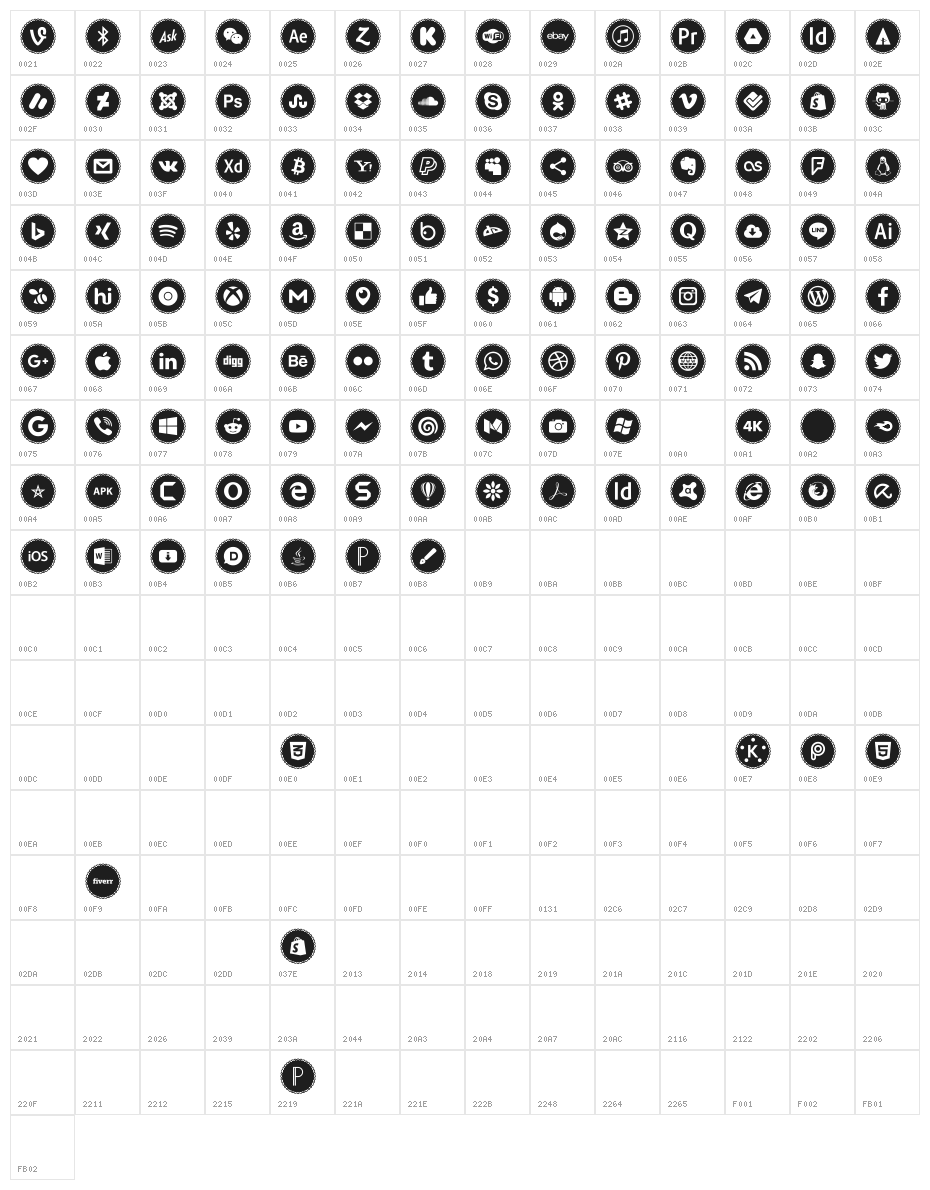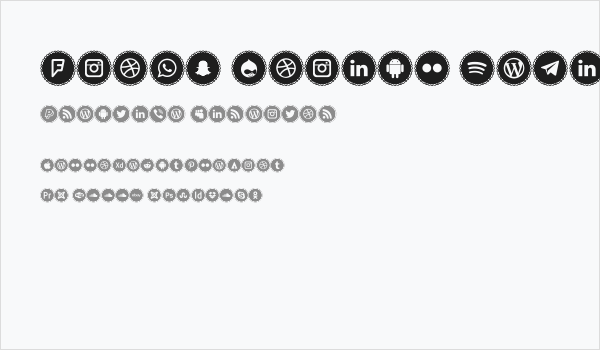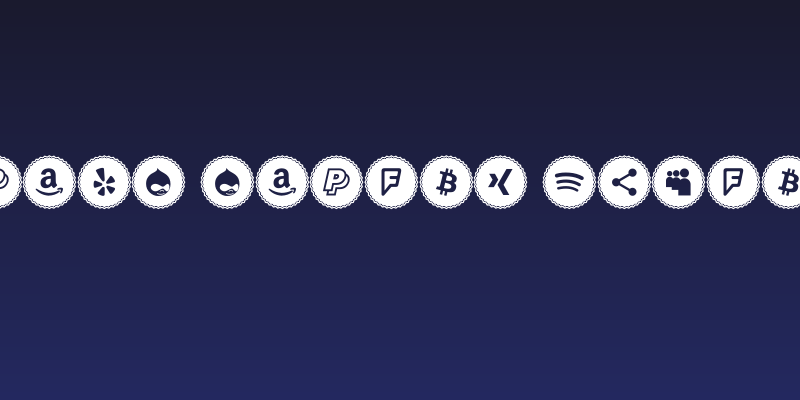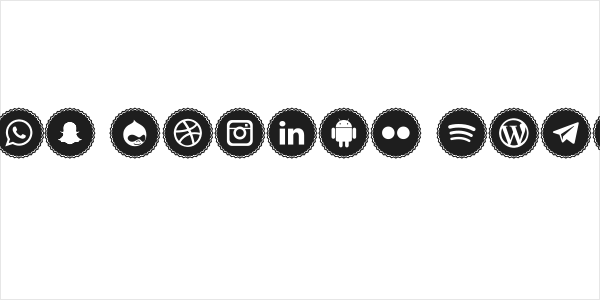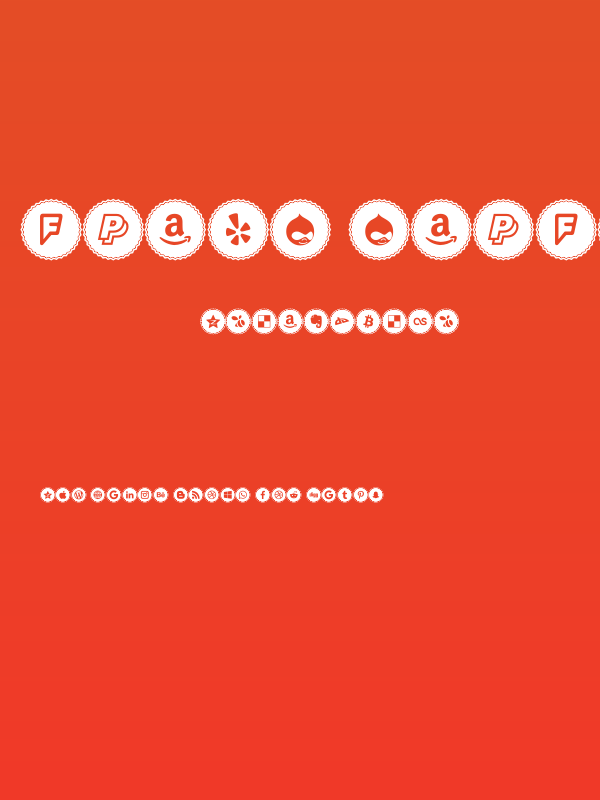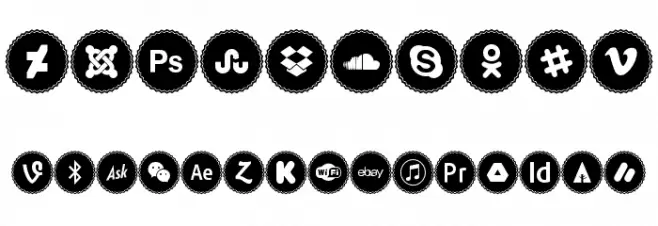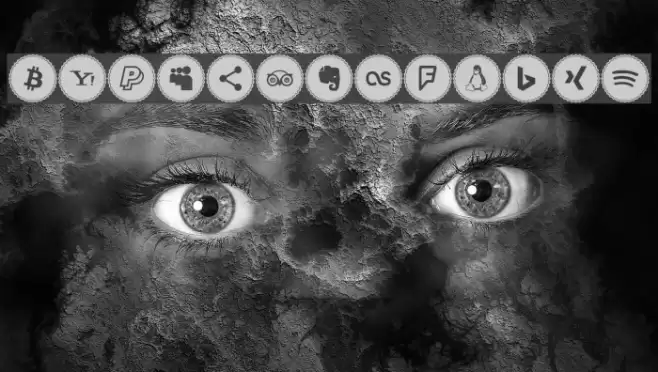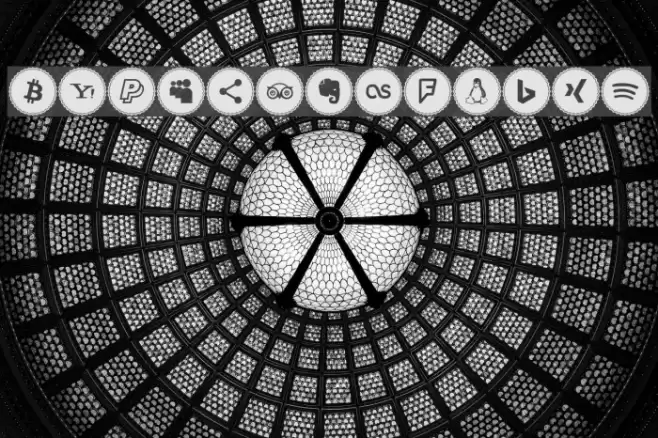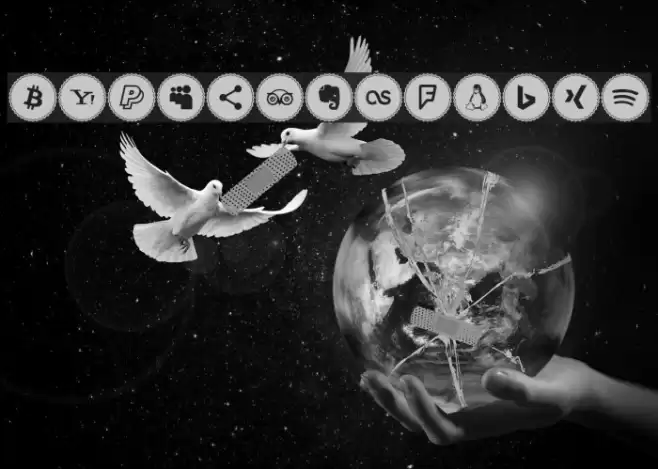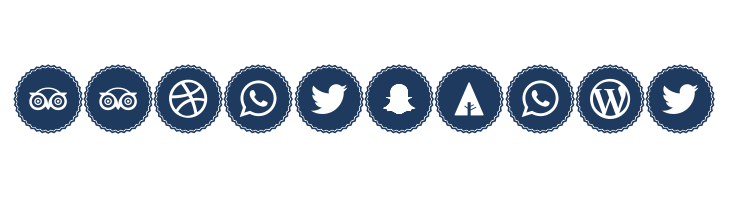
Icons Social Media 3 Font
A set of monochrome, circular social media and web service icons with white glyphs on solid black backgrounds, each icon surrounded by a dashed border. The icons are highly simplified and easily recognizable, designed for clear visibility at small sizes.
| Overall Style | Modern, Minimalist |
| Use Case | Icons, UI elements, social media links |
| Proposed Projects | Website footers, app interfaces, business cards, presentations, digital portfolios. |